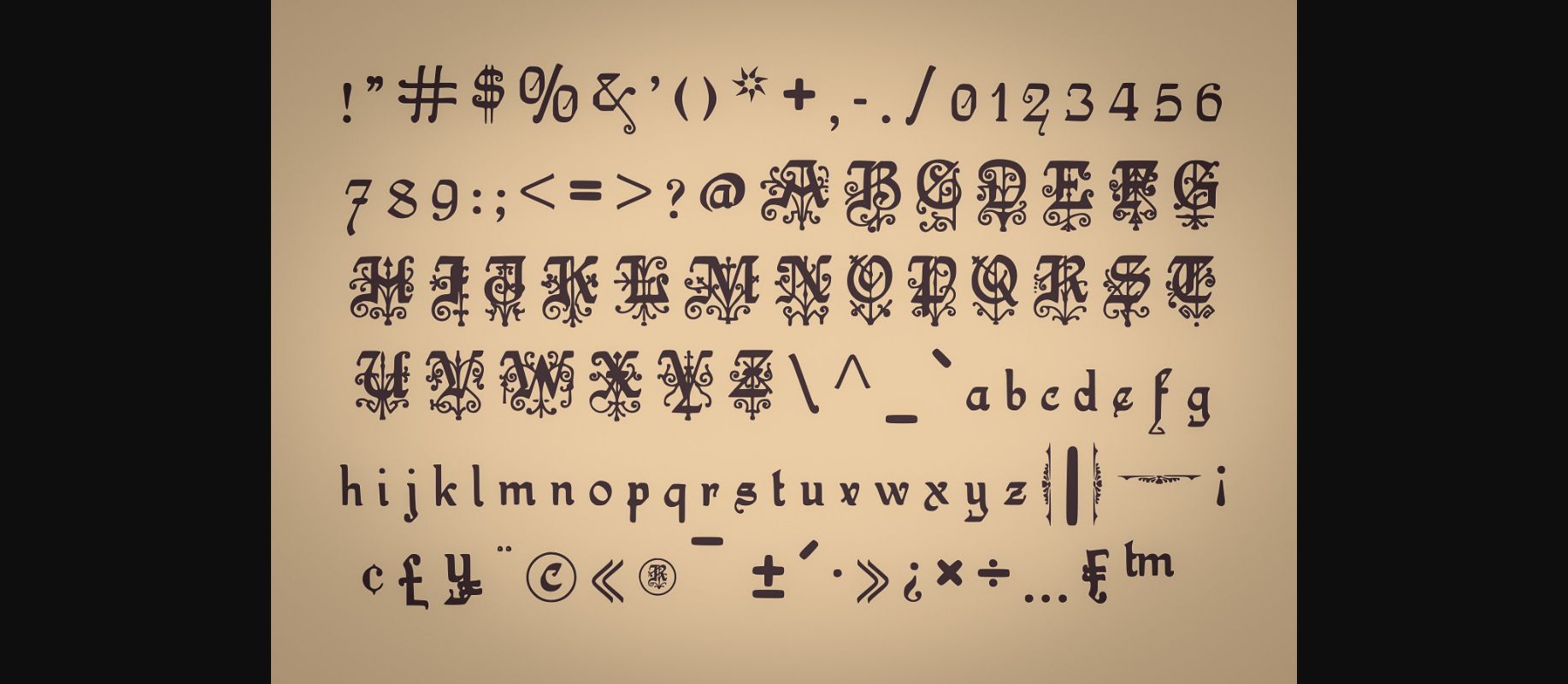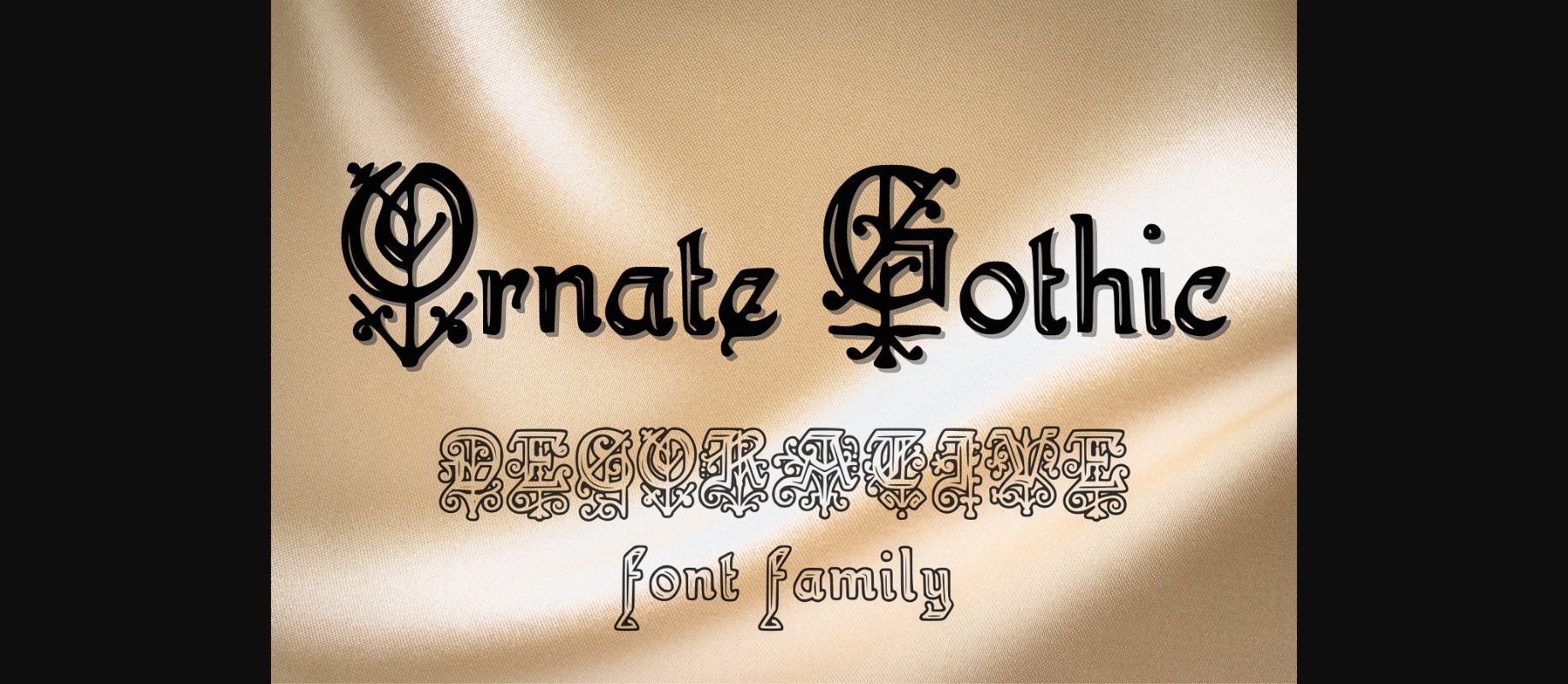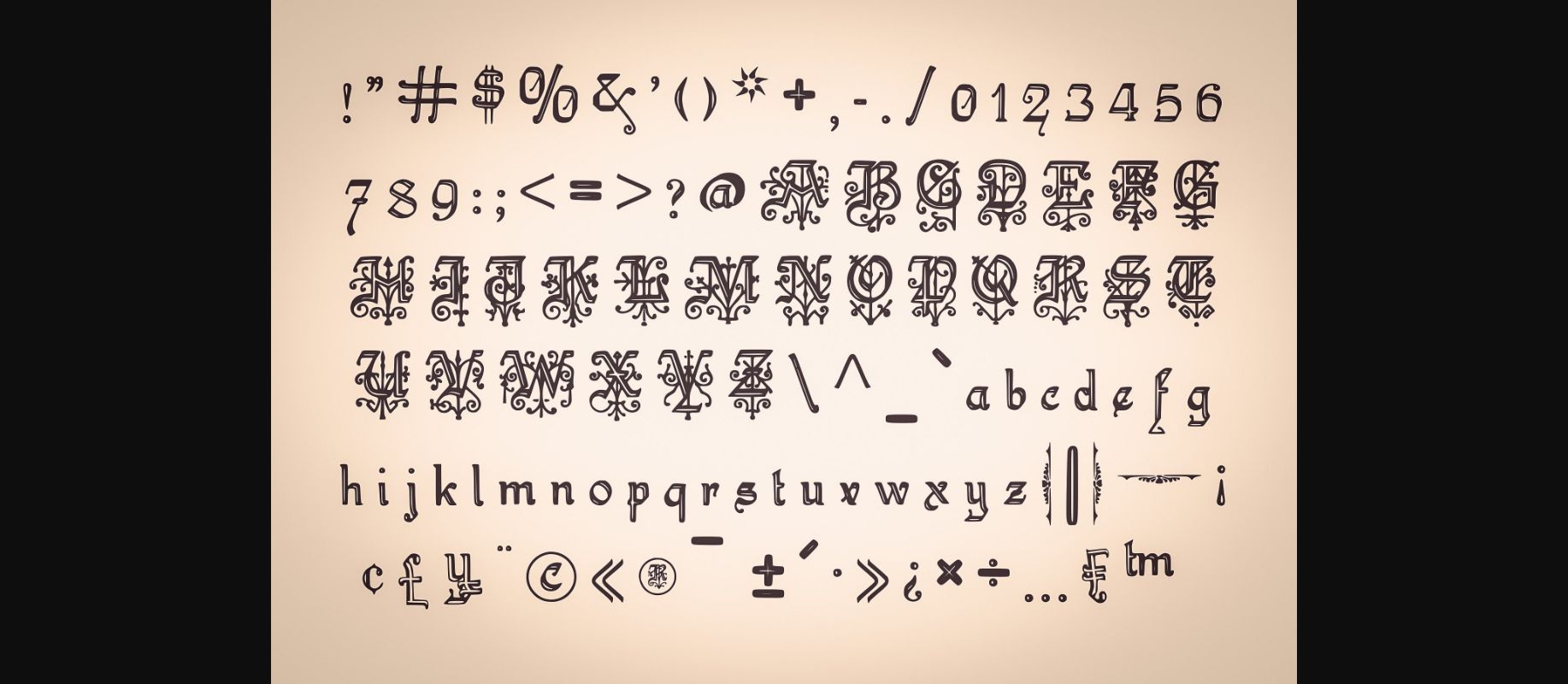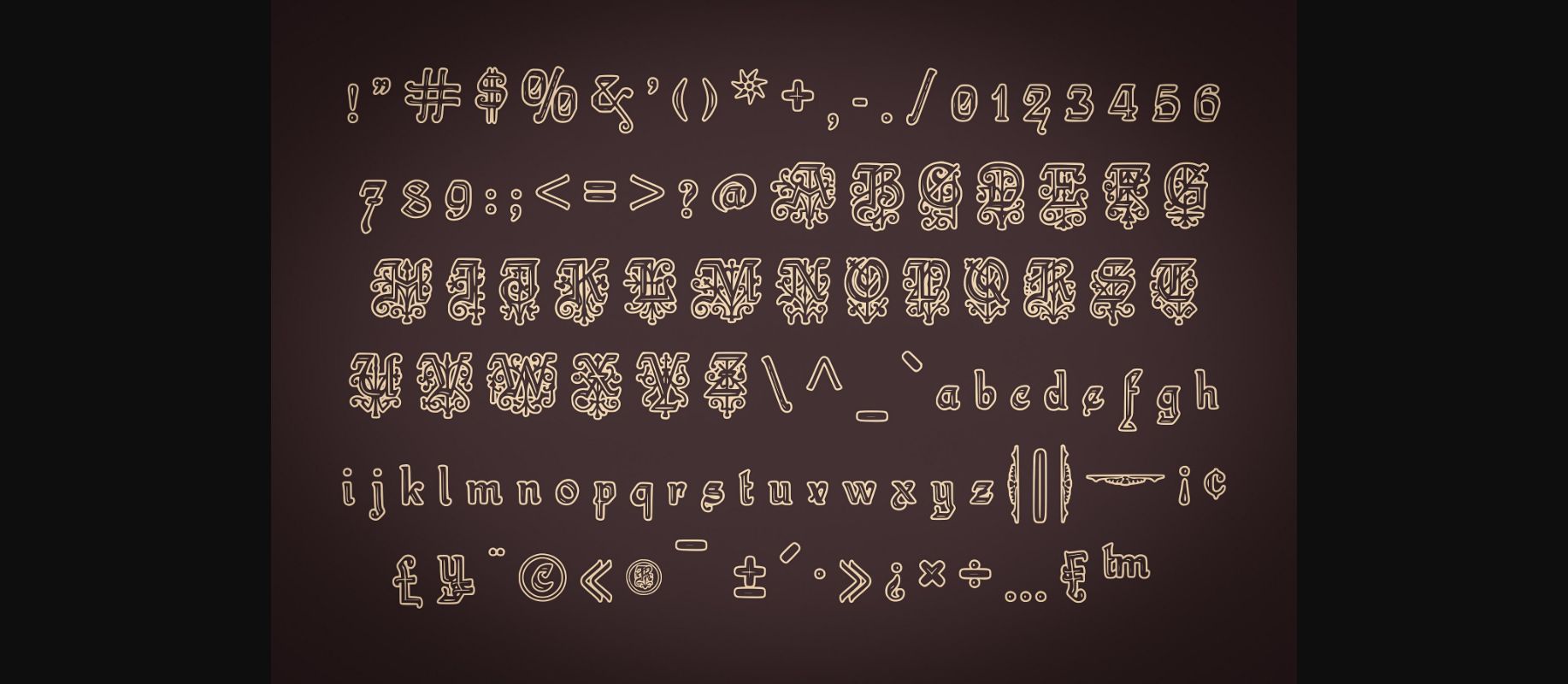
Ornate Gothic is a splendid, antique blackletter font that will impress with its stylish features. Use it for product packaging, branding, or other projects that need bold and daring typography!